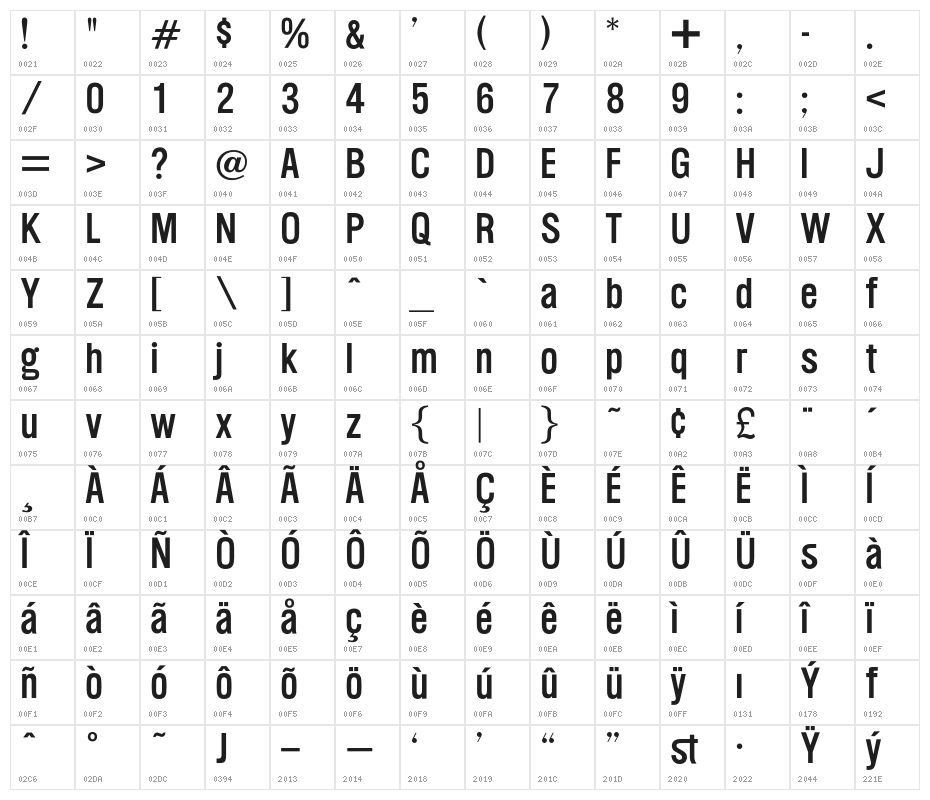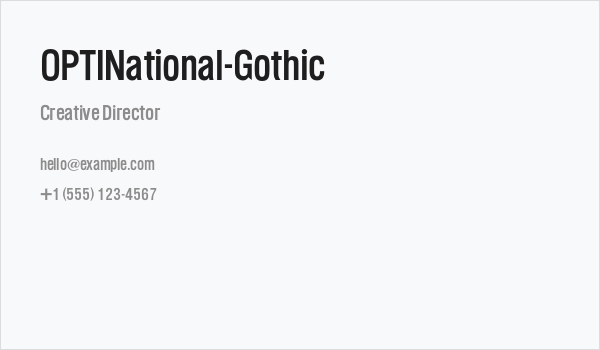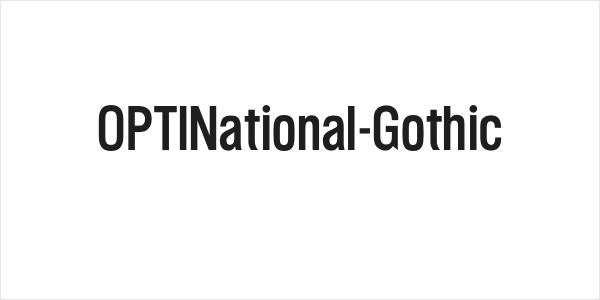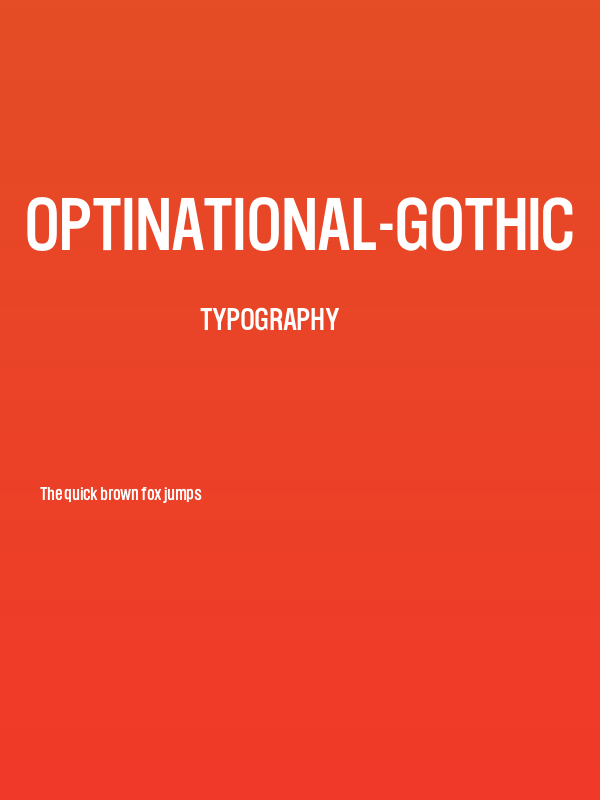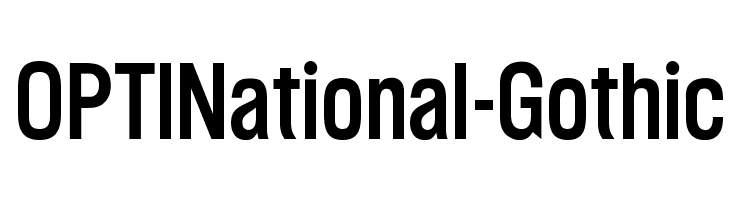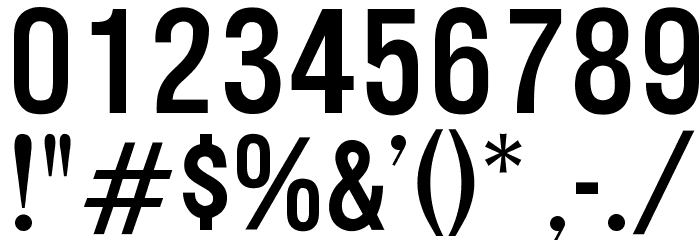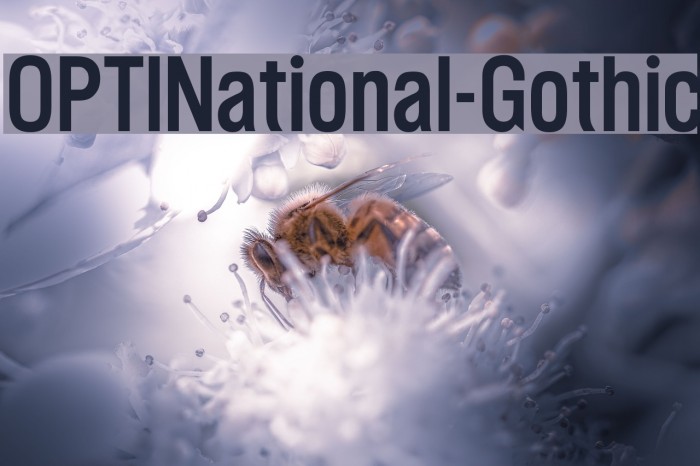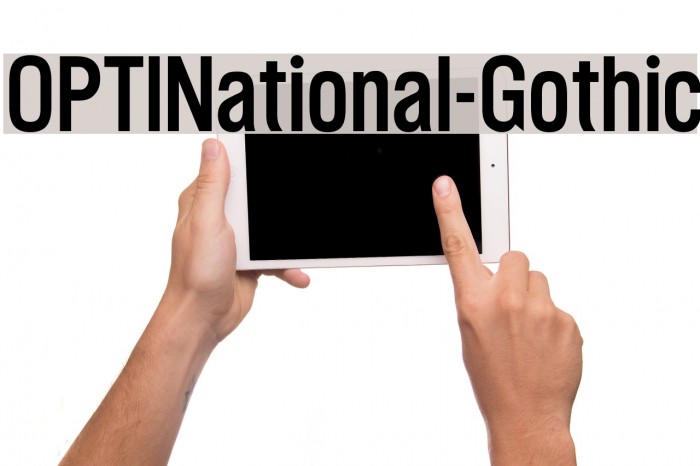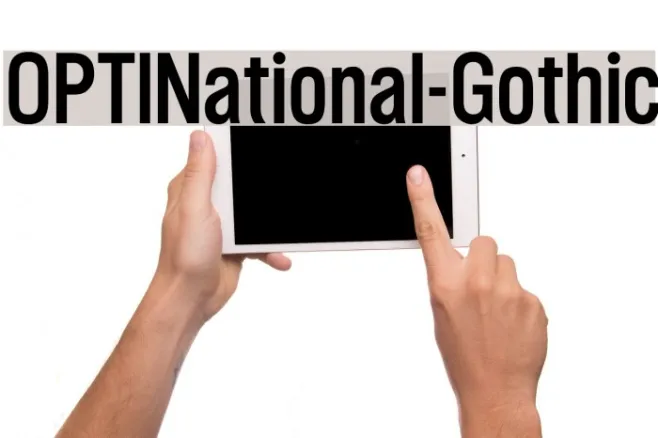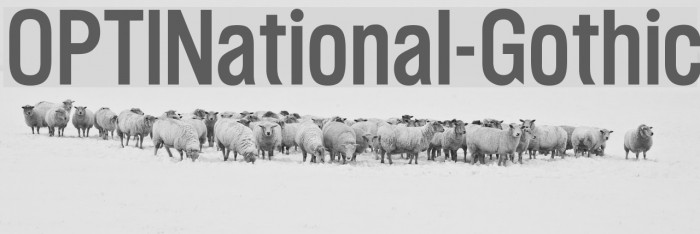
OPTINational-Gothic Font
OPTINational-Gothic Description
This typeface features a bold and modern sans-serif design, characterized by clean lines and a strong presence. The uppercase and lowercase letters maintain a consistent height, providing a uniform appearance. The numerals are clear and easy to read, making them suitable for various applications. The special characters are well-defined, ensuring versatility in usage. The overall design is straightforward yet impactful, making it ideal for projects that require a contemporary and professional look.
| Use Case | Headlines, Logos, Advertising |
| Proposed Projects | Ideal for branding, advertising, headlines, and digital content where a modern and professional appearance is desired. |